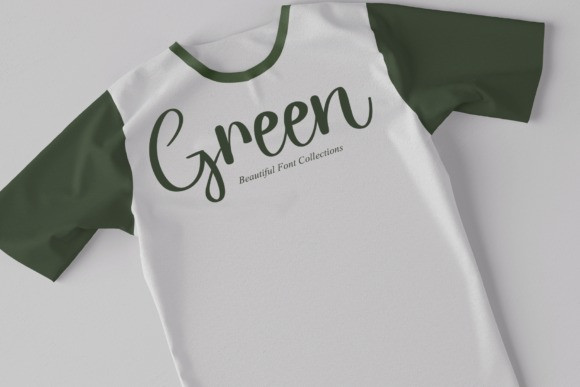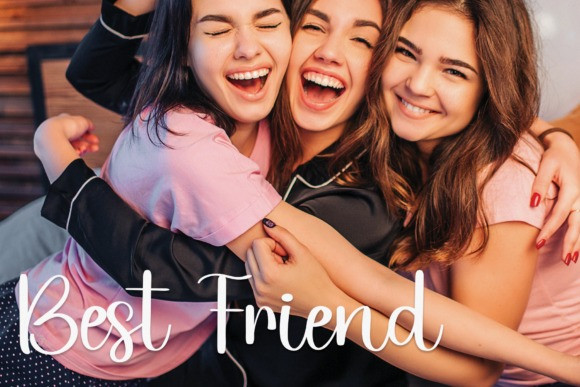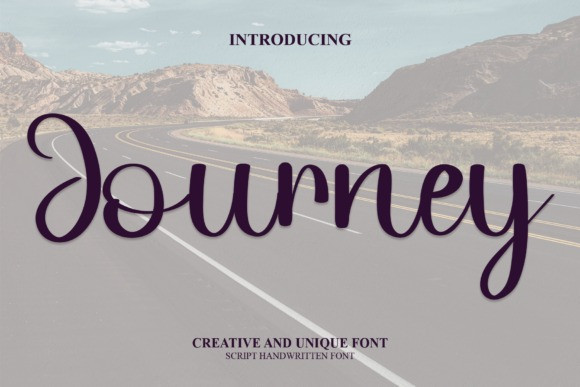
Journey Font
Journey Font is a sweet handwritten font that was crafted with great care to produce the expected results. It has a beautiful and balanced character, that fits well with the large design pool.